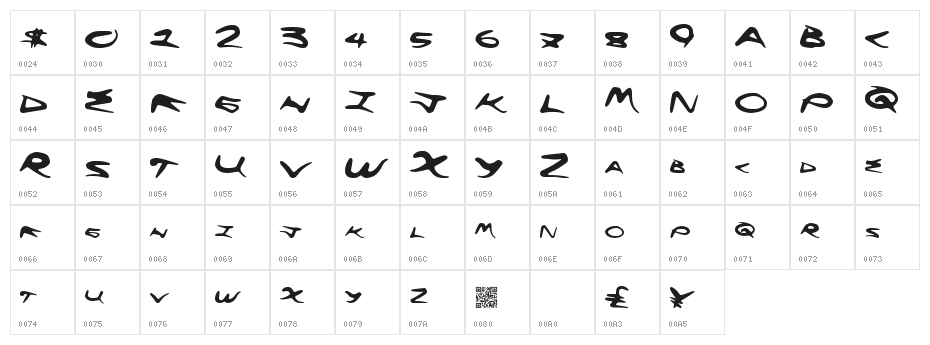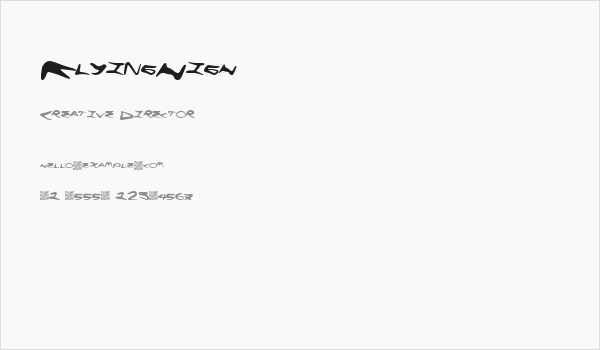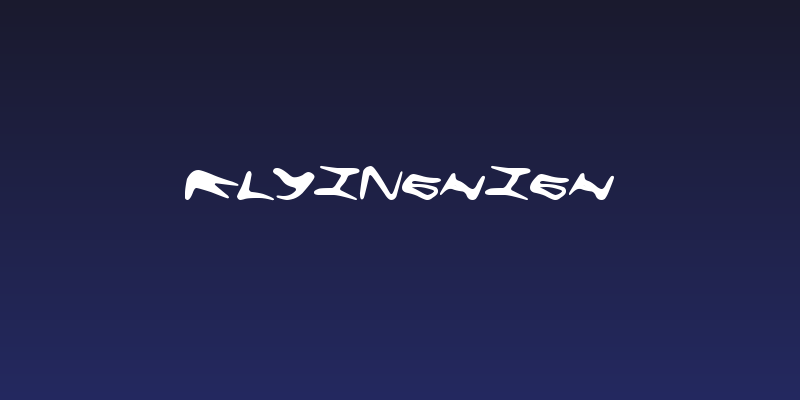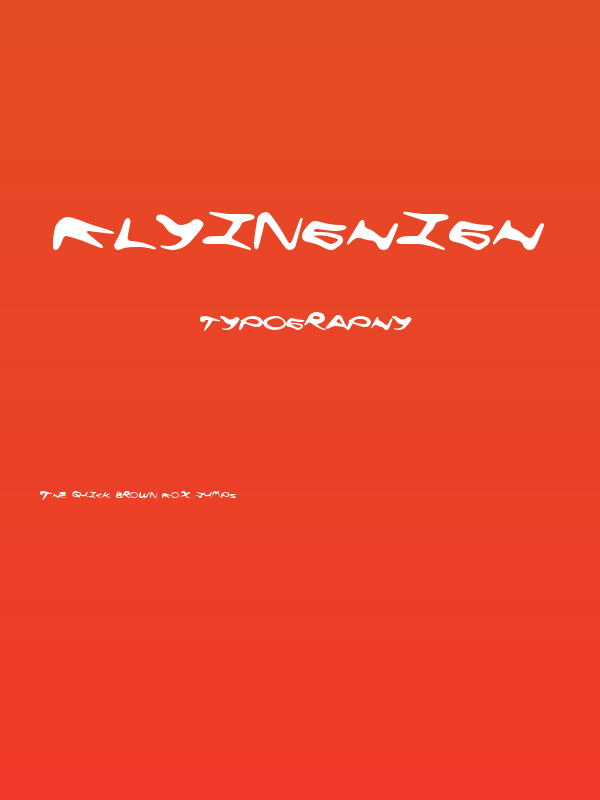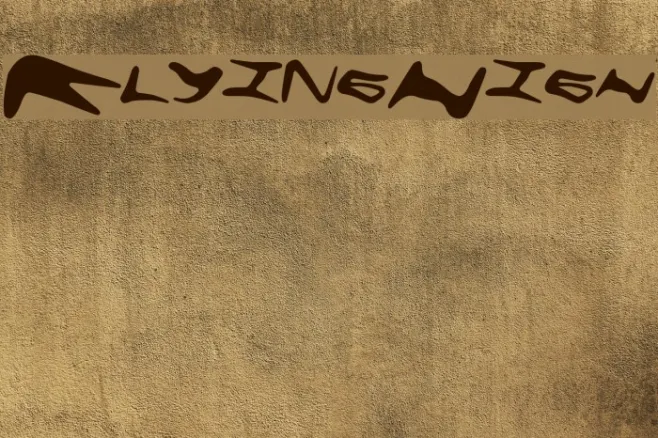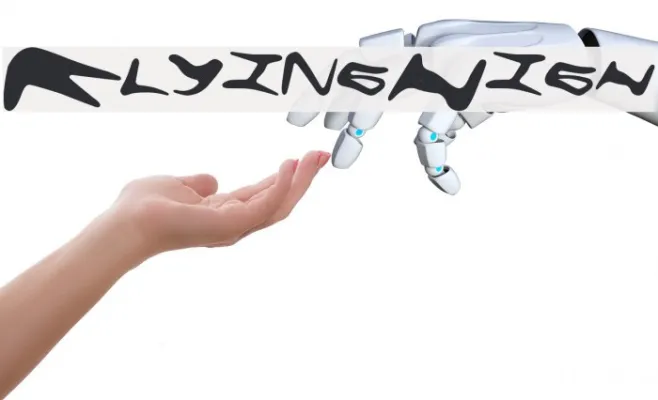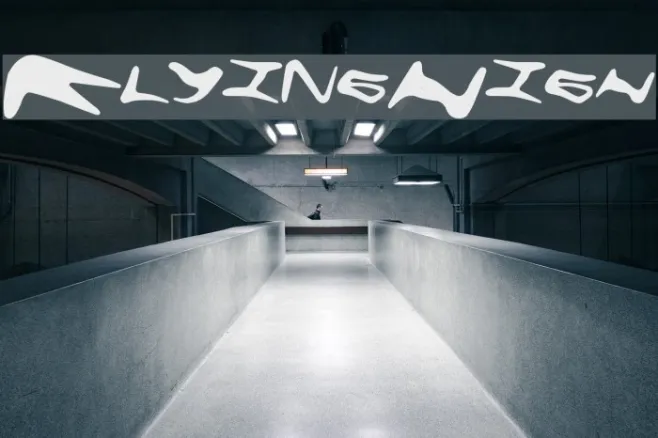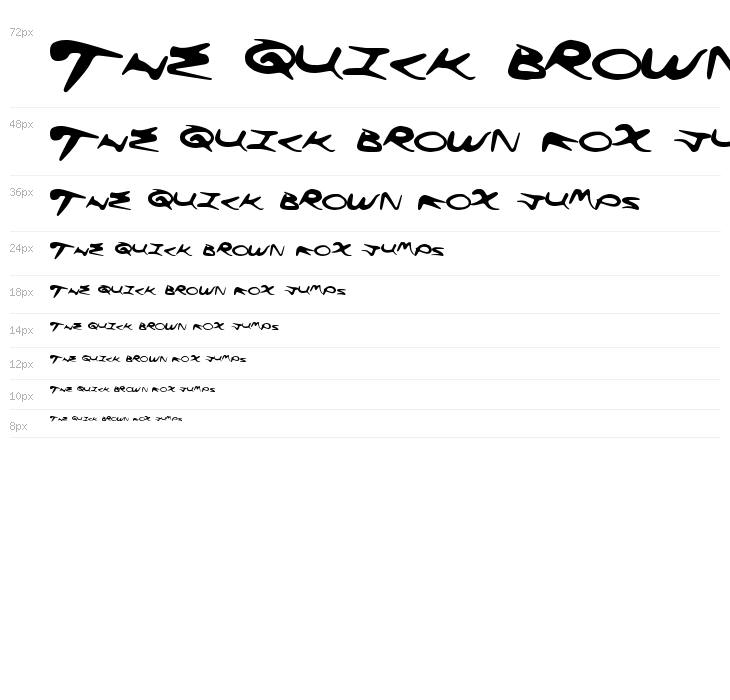
FlyingHigh Font
FlyingHigh Description
This font features a dynamic and energetic style, characterized by its bold and fluid strokes. The letters have a unique, hand-drawn appearance with a slightly irregular baseline, giving it a sense of movement and spontaneity. The uppercase and lowercase letters maintain a consistent style, with exaggerated curves and angles that add to its distinctive look. The numbers follow the same design principles, ensuring a cohesive appearance across all characters. This font is ideal for projects that require a bold and artistic touch.